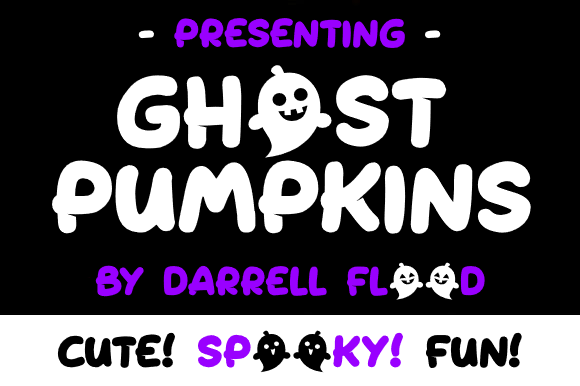
Introducing Ghost Pumpkins Font: The Ultimate Halloween Decorative Font
Are you looking for a font that captures the spooky yet playful spirit of Halloween? Look no further than Ghost Pumpkins Font, a bouncy, cartoon font in a decorative Halloween style. This delightful font is perfect for Halloween parties and events, family horror themes, and general all-purpose use. In this article, we’ll dive into the features and benefits of Ghost Pumpkins Font, and explore how it can add a touch of Halloween magic to your designs.
What is Ghost Pumpkins Font?
Ghost Pumpkins Font is a unique and playful font that features three different cute ghost pumpkin characters. The font is designed to evoke the spirit of Halloween, with a bouncy and cartoonish style that’s perfect for creating eye-catching designs. Whether you’re creating invitations, decorations, or social media graphics, Ghost Pumpkins Font is sure to add a touch of Halloween fun to your projects.
Key Features of Ghost Pumpkins Font
- Bouncy and Cartoonish Style: Ghost Pumpkins Font features a playful and bouncy style that’s perfect for creating fun and eye-catching designs.
- Three Cute Ghost Pumpkin Characters: The font includes three different ghost pumpkin characters, each with its own unique personality.
- Decorative Halloween Style: The font is designed to evoke the spirit of Halloween, with a decorative style that’s perfect for creating spooky yet playful designs.
- Perfect for Halloween Parties and Events: Ghost Pumpkins Font is perfect for creating invitations, decorations, and other materials for Halloween parties and events.
- Great for Family Horror Themes: The font is also great for creating designs for family horror themes, such as haunted houses or spooky movie nights.
Benefits of Using Ghost Pumpkins Font
So why choose Ghost Pumpkins Font for your Halloween designs? Here are just a few benefits of using this delightful font:
- Adds a Touch of Halloween Fun: Ghost Pumpkins Font is sure to add a touch of Halloween fun to your designs, making them perfect for parties, events, and other celebrations.
- Versatile: Ghost Pumpkins Font can be used for a wide range of design projects, from invitations and decorations to social media graphics and more.
- High-Quality Design: The font is designed with high-quality graphics, ensuring that your designs look professional and polished.
Design Ideas Using Ghost Pumpkins Font
Ghost Pumpkins Font is a versatile font that can be used for a wide range of design projects. Here are a few ideas to get you started:
- Halloween Invitations: Create spooky yet playful invitations for Halloween parties and events.
- Decorations: Use the font to create decorations, such as banners, garlands, and other materials.
- Social Media Graphics: Create social media graphics, such as Facebook posts and Instagram stories, using Ghost Pumpkins Font.
- Haunted House Designs: Use the font to create designs for haunted houses, such as signs and posters.